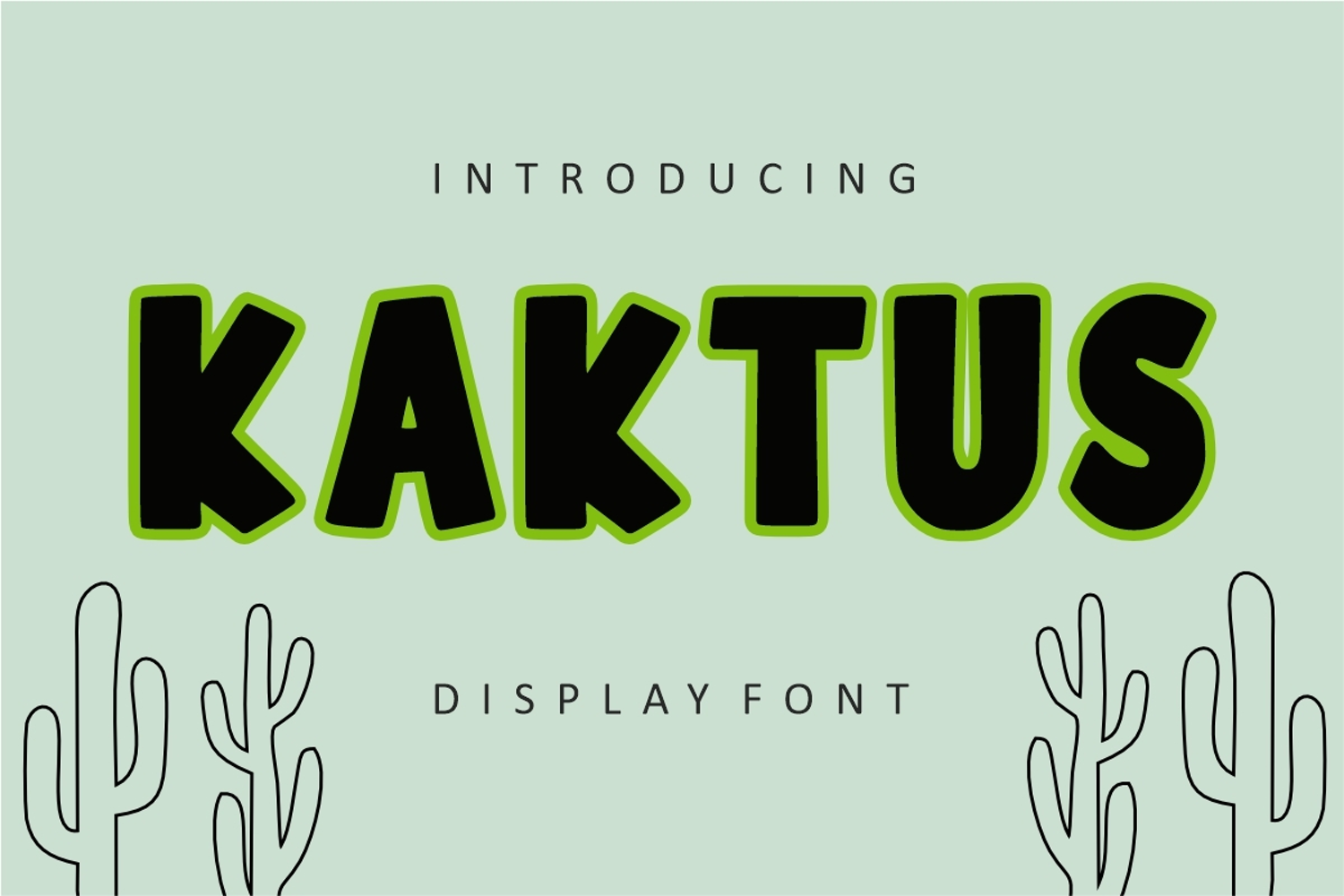
KAKTUS
Kaktus-Regular
KAKTUS is a cartoon, bold, easy-to-read display font that conveys impeccable friendliness. Whether you’re using it for crafts, digital design, presentations, or greeting cards, this font has the potential to become your favorite go-to font, no matter the occasion!
KAKTUS